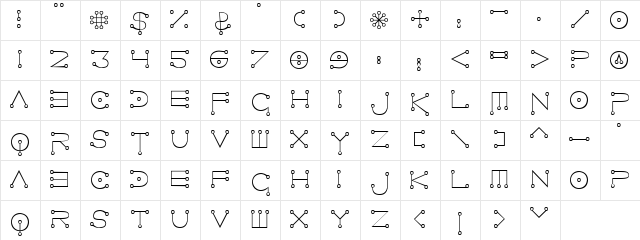
Cuniform English Normal Free Font
Cuniform English Normal
Complete Cuniform English Normal glyph index. Displaying only characters natively supported by Cuniform English Normal font.
Design Context for Cuniform English
Cuniform English is a composed and adaptable typeface that performs quietly and consistently across a wide range of design contexts.
Pro Tip: Use Cuniform English in both headline and body roles to test its range before committing to a single application.